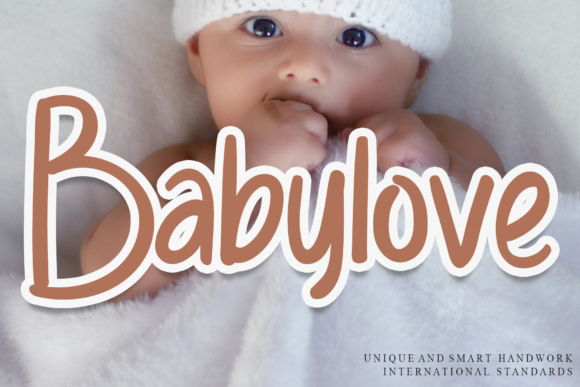
Step into the world of Babylove Font, where simplicity, elegance, and charm intertwine. This captivating script font, meticulously crafted by Creativewhitee, is a design masterpiece that will infuse your creations with a touch of captivating elegance.
Babylove Font is the epitome of versatility, seamlessly flowing from UI/UX designs to branding projects, social media posts, and heartfelt invitations. Its organic, handwritten style lends a personal touch, making it a perfect choice for expressing your unique brand identity or adding a dash of charm to your personal projects.
As you explore the endless variations of Babylove Font, you'll discover a myriad of possibilities to unleash your creativity. Whether you're crafting a user interface that exudes warmth and approachability or designing a wedding invitation that radiates romance and elegance, Babylove Font will effortlessly elevate your vision.
Its clean lines and smooth curves create a visual harmony that draws the eye, enhancing the impact of your messages and captivating your audience. Each letterform is carefully crafted to ensure readability and maintain its distinct personality, ensuring that your words shine with clarity and charm.
With Babylove Font, you'll embark on a creative journey filled with endless possibilities. Its timeless beauty and versatile nature make it an indispensable tool for designers seeking to create truly exceptional works of art. Experience the magic of Babylove Font today and elevate your designs to new heights of elegance and sophistication.